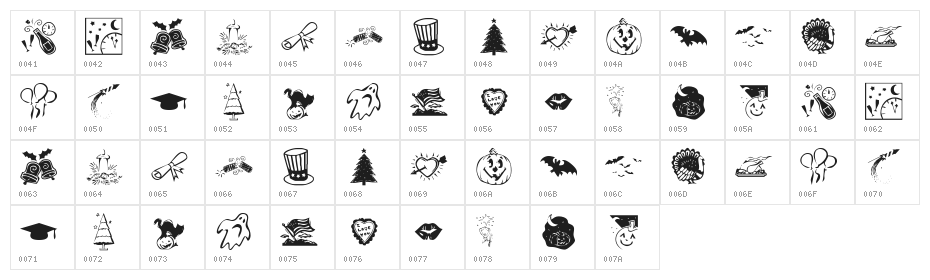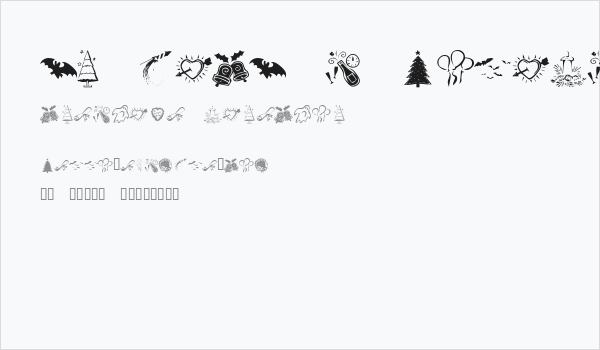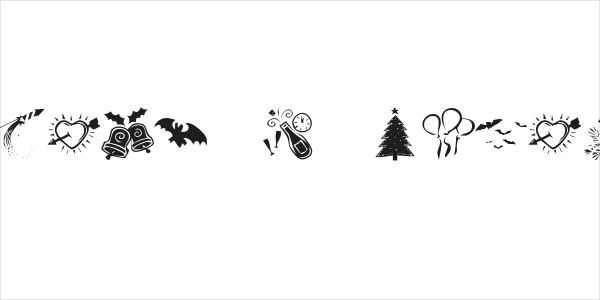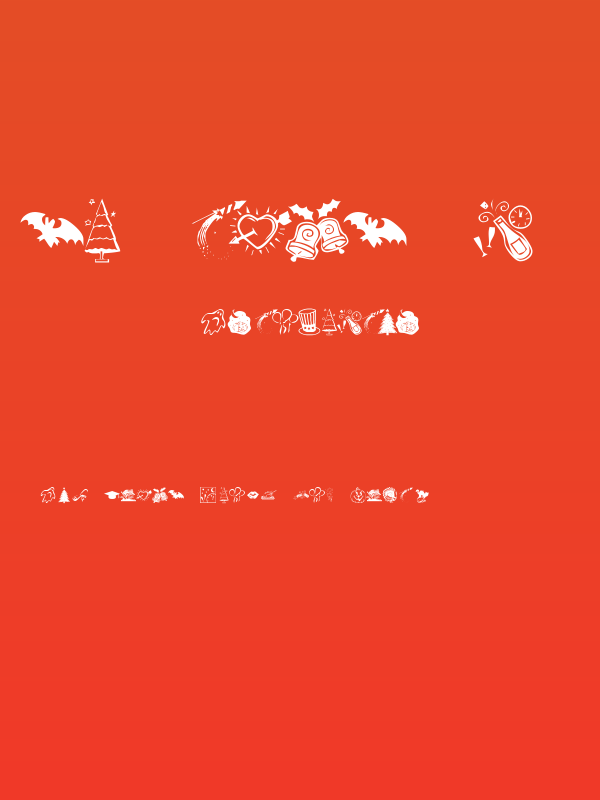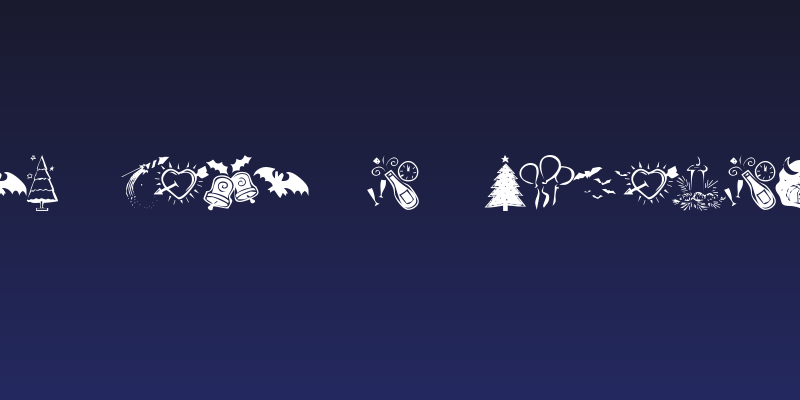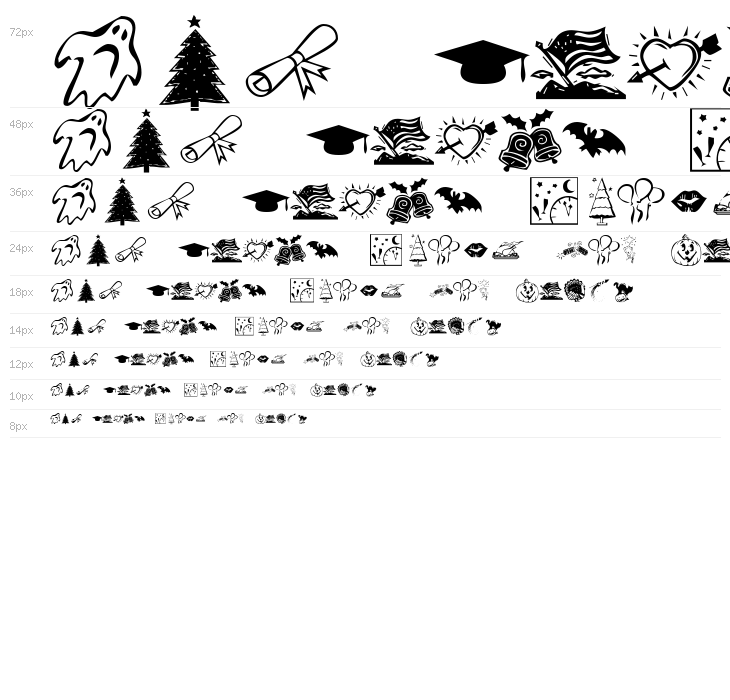
KR Pick A Holiday Font
KR Pick A Holiday Description
A decorative dingbat font featuring a variety of holiday and celebration-themed icons, including symbols for New Year's, Valentine's Day, Halloween, Thanksgiving, Christmas, graduation, and patriotic events. Each character is represented by a unique, playful black-and-white illustration.
| Overall Style | Decorative, Playful |
| Use Case | Icons, Decorative elements, Themed graphics |
| Proposed Projects | Greeting cards, party invitations, event flyers, scrapbooking, seasonal decorations. |